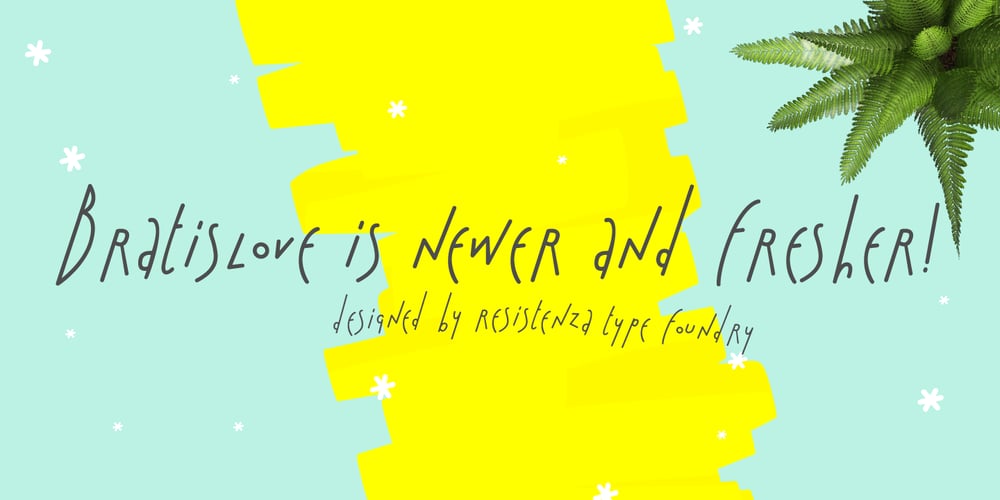
Bratislove Font Family was designed by Giuseppe Salerno, Paco González and published by Resistenza. Bratislove contains 2 styles and family package options. Bratislove Font Family:A whimsical and lively collection of typefaces designed to infuse your projects with charm and personality. Consisting of three distinct styles—italic, italic bold, and calligraphic—this family brings a playful yet elegant touch to any design.The Italic variant of Bratislove exudes a whimsical air, with its lively letters and bouncing baseline. Each character carries a sense of spontaneity, adding a fresh rhythm to your text. Whether used for headings, titles, or body text, this font injects a sense of fun and vitality into your designs.For those seeking a bolder statement, the Italic Bold version of Bratislove offers a punchier rendition of the playful style. With enhanced weight and emphasis, it commands attention while maintaining the same dynamic and energetic vibe of its lighter counterpart. It’s perfect for adding emphasis to key phrases or headlines, ensuring your message stands out in style.Completing the trio is the Calligraphic style of Bratislove, which embraces the artistry of hand-lettering while departing from traditional calligraphy. Drawing inspiration from handwritten text crafted with a flat-tip marker pen, this unconventional approach infuses the font with a youthful and urban touch, distinguishing it from classic calligraphic styles.In addition to its lively aesthetics, the Bratislove Font Family offers OpenType features, including ligatures, to enhance typographic versatility and creativity. These features allow for seamless connections between letters, further enhancing the fluidity and cohesion of your text.